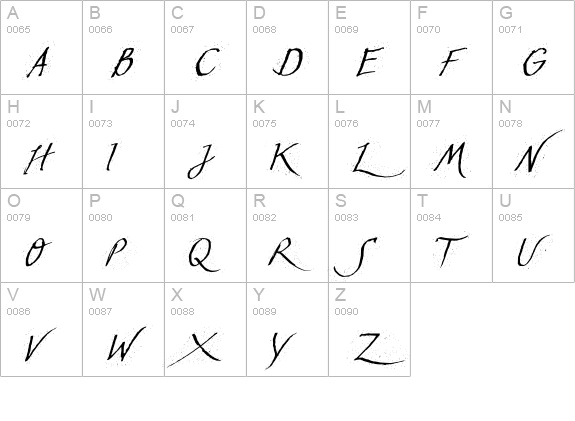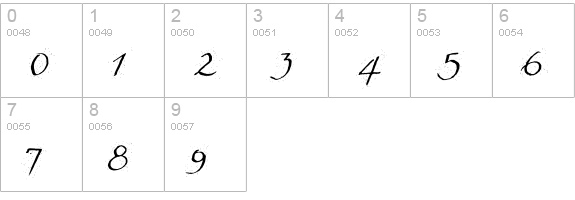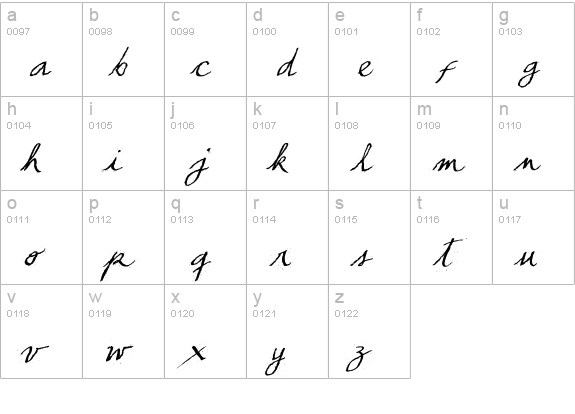
Introducing TCLescuelerascript, a stunningly elegant font that effortlessly combines modernity with a touch of classic calligraphy. This font is perfect for adding a sophisticated and professional touch to any project, whether it be branding, logo design, invitations, or headline typography. With its flowing curves and delicate strokes, TCLescuelerascript exudes a sense of grace and refinement. Each letter has been meticulously crafted to ensure a seamless and harmonious flow, resulting in a truly captivating visual experience. The font's versatility allows it to adapt to various design styles, making it a go-to choice for both contemporary and traditional aesthetics. One of the most remarkable aspects of TCLescuelerascript is that it is free! Yes, you read that right. This exquisite font is freely available to download at FontsMarket.com, allowing designers and creatives alike to access its beauty without any cost. This generous offering ensures that everyone has the opportunity to elevate their designs with TCLescuelerascript's timeless charm. Whether you're a seasoned designer or just starting your creative journey, TCLescuelerascript is a must-have addition to your font collection. Its effortless elegance and versatility make it a truly invaluable resource for any project. So don't miss out on this remarkable font; head over to FontsMarket.com and download TCLescuelerascript today, and let your creativity soar to new heights.